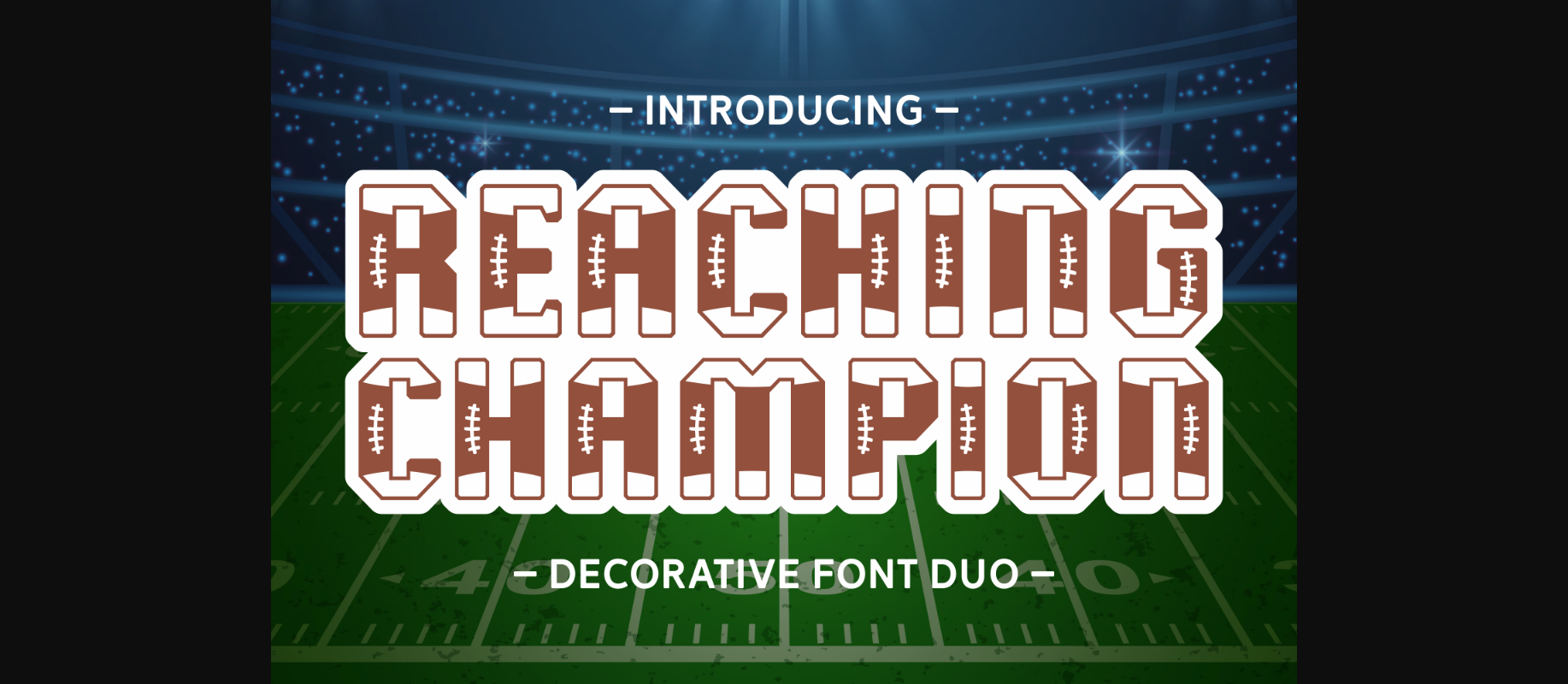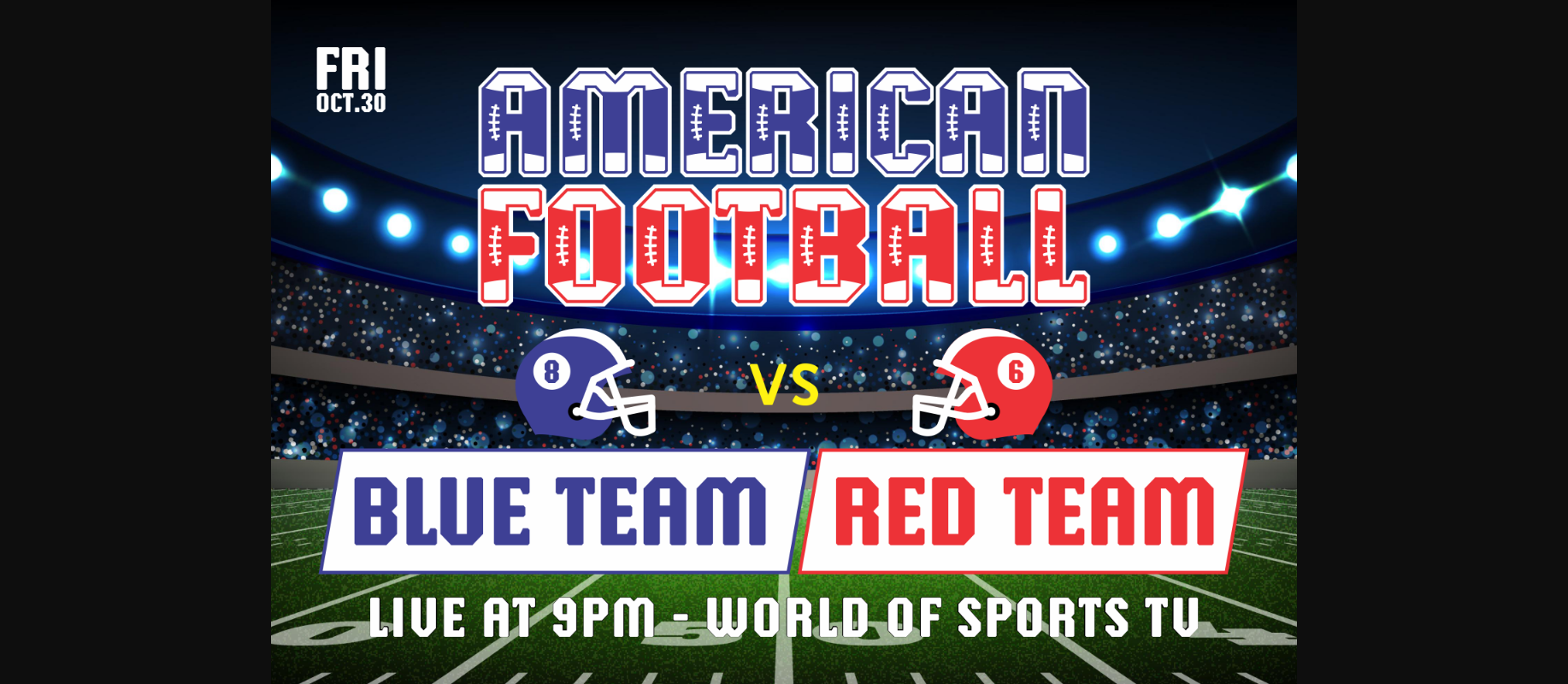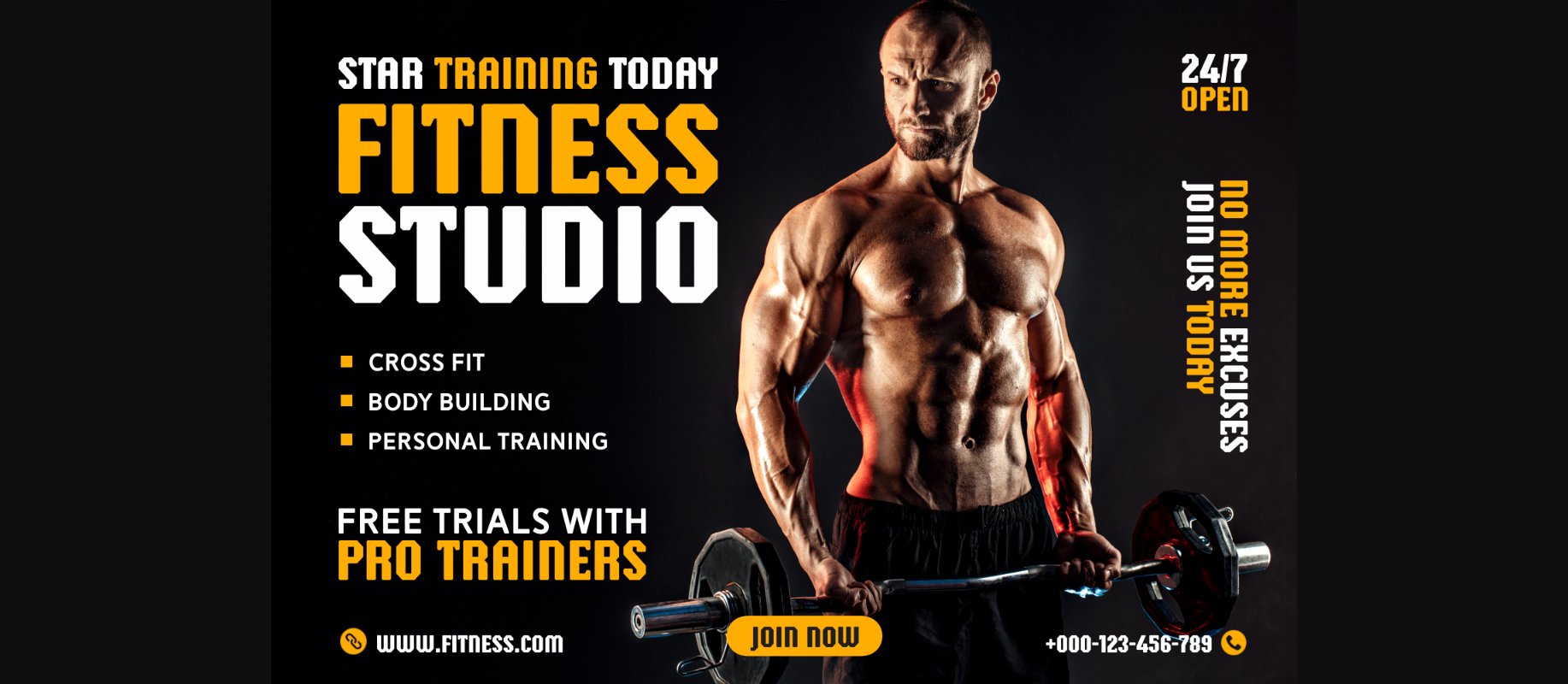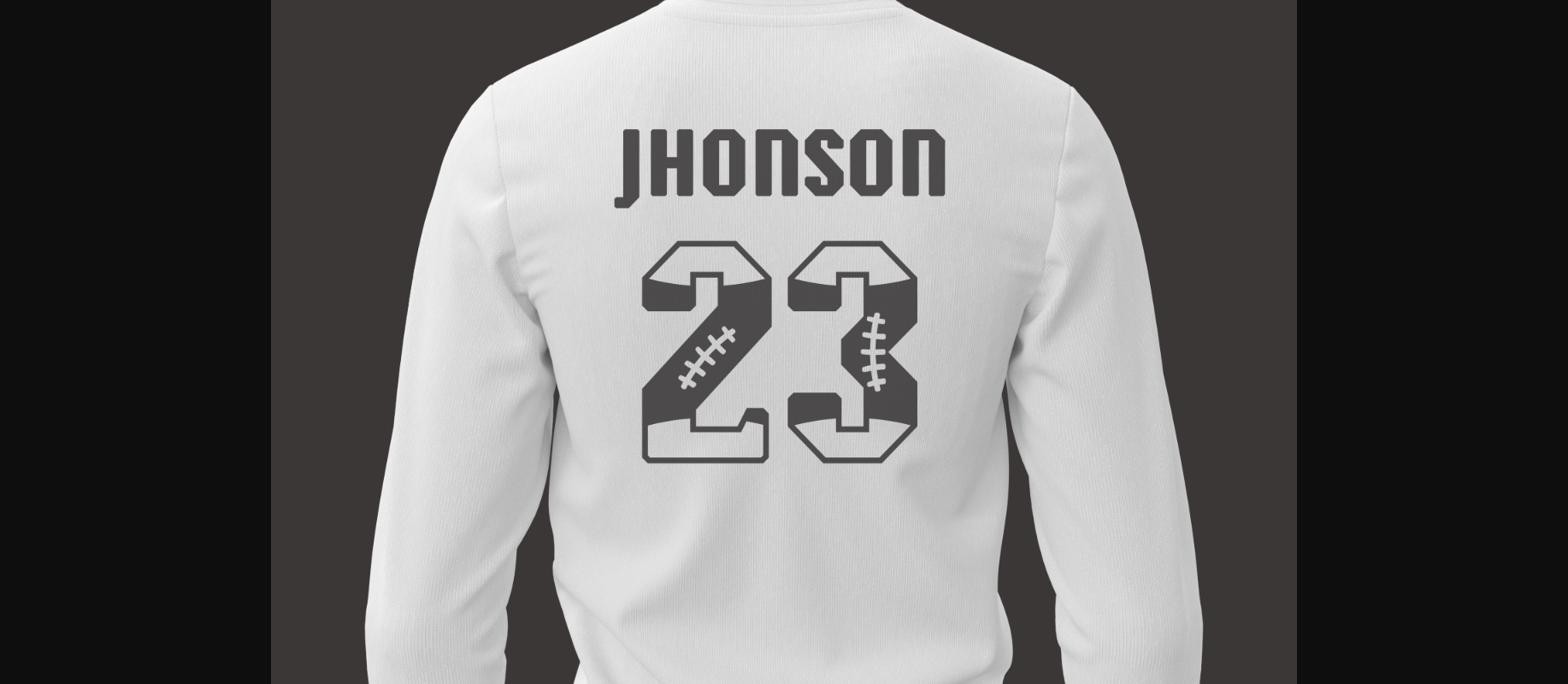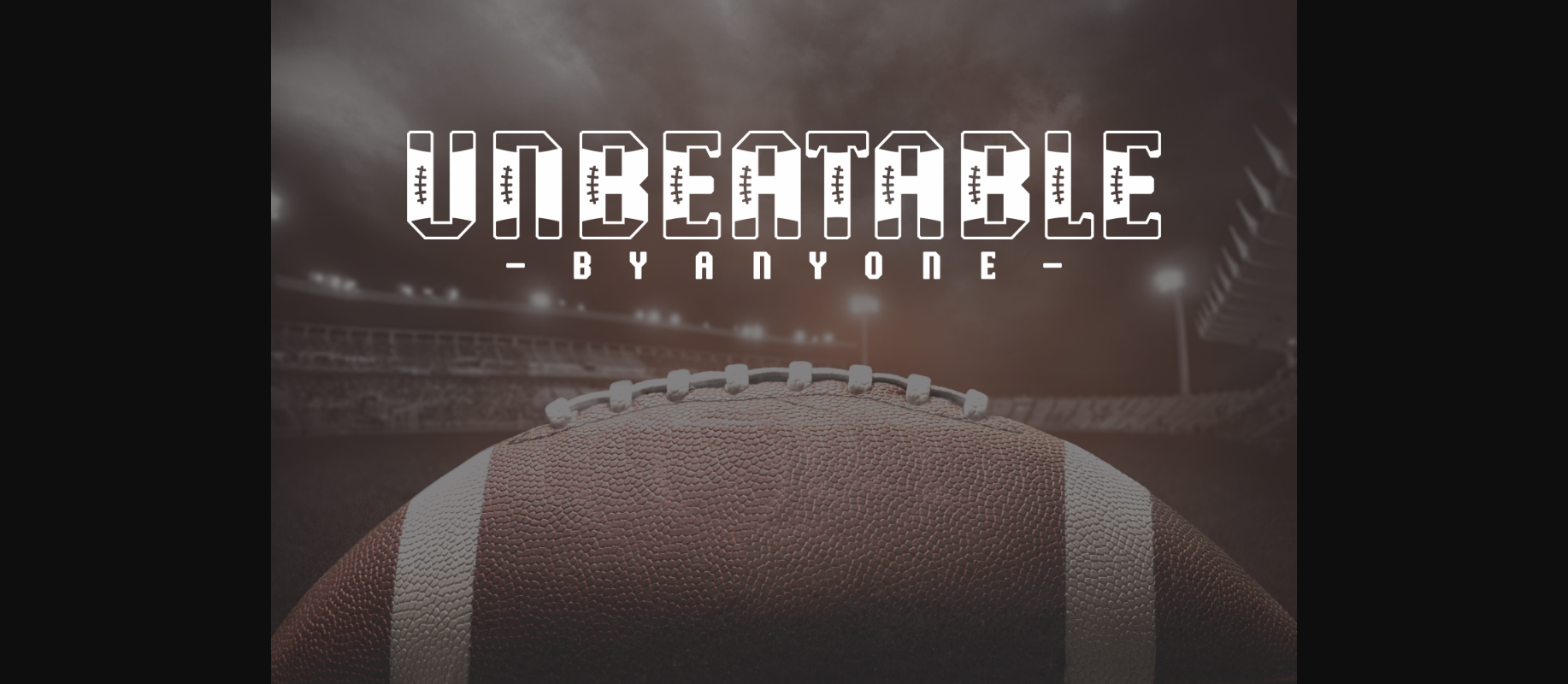
About Reaching Champion Font
The letterforms themselves embody the raw power and athleticism associated with American football. The angles and curves of the font are a visual representation of the game’s dynamic nature.
Reaching Champion’s attention to detail extends beyond the football motif. These decorative elements pay homage to the rich tradition and history of American football, while also infusing the font with a touch of sophistication and artistic flair.